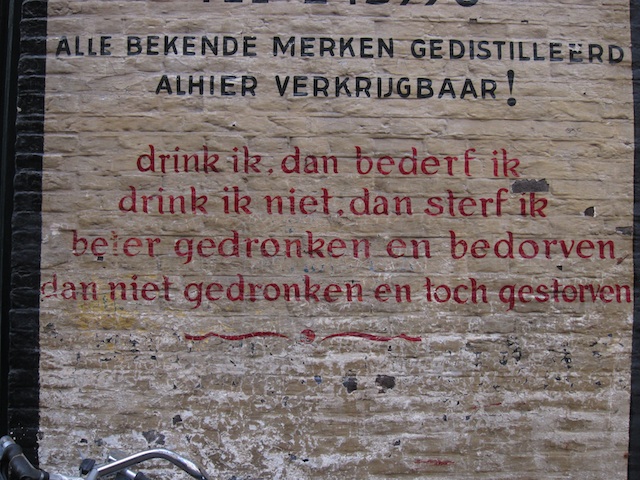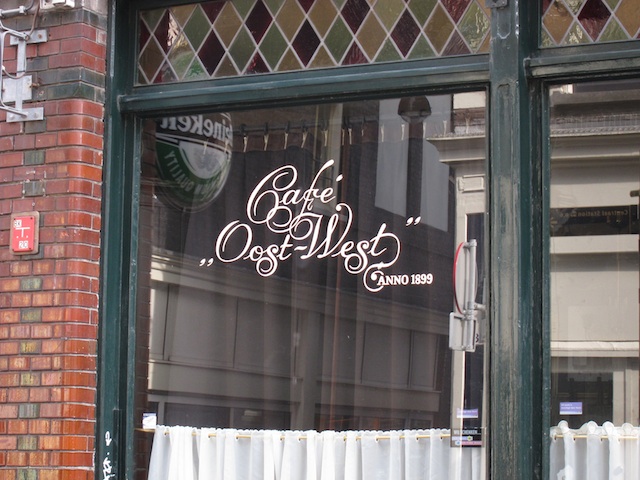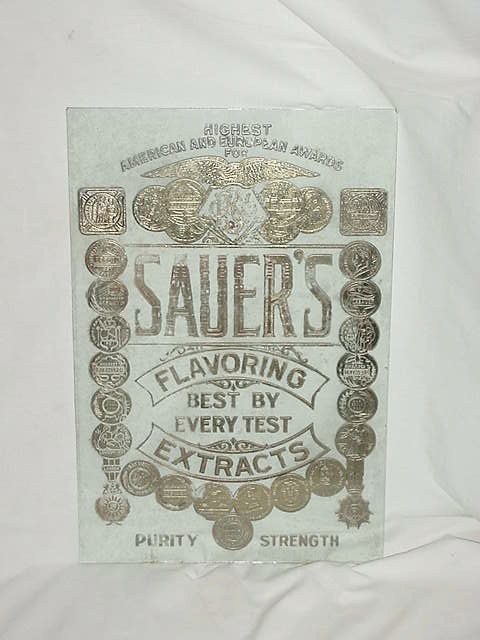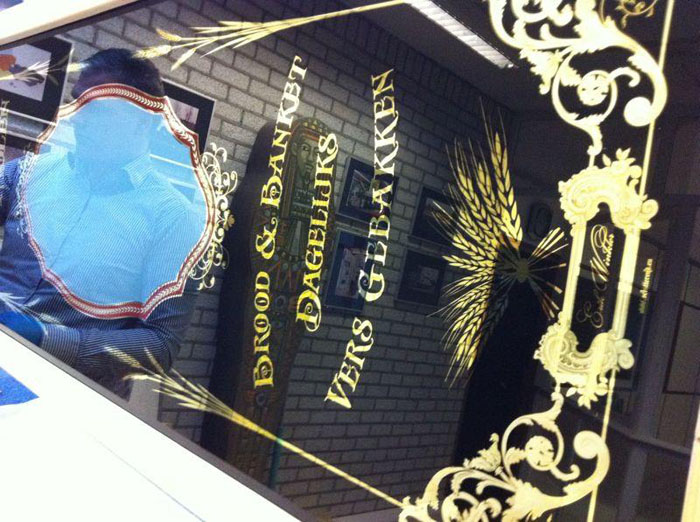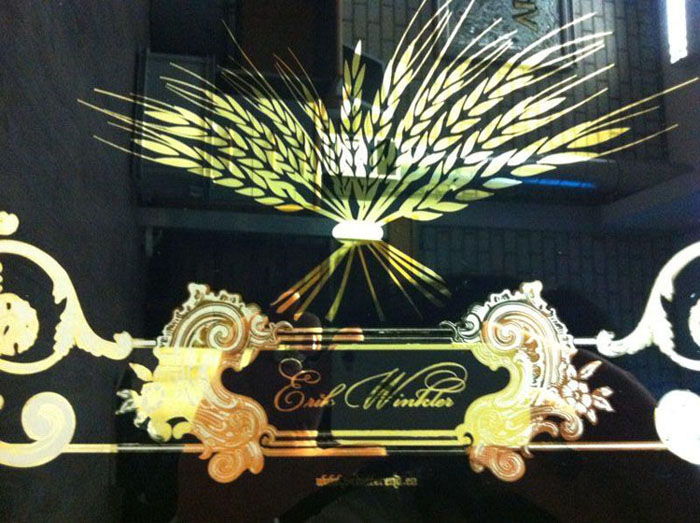
Hi Erik,
You misunderstood me. I don't mean a hole for ventilation.
The air gap I refer to is a space between the back of the glass panel and the wall behind it.
The principle idea is that nothing should touch the back of the splashback. Or more accurately, nothing should touch the paint that has been applied to the back of the glass.
This same principle applies to glass pictures, signs or mirrors mounted in a frame...It's not good to have any backing board up hard against the glass panel.
That is what I understood Bruce.
Where is the hole?
If it is on top, I can imagine that water will sip in and drip to the bottom and could eventually peel of the work.
Where is the hole?
If it is on top, I can imagine that water will sip in and drip to the bottom and could eventually peel of the work.
Erik, don't think drainage, think cavity wall insulation and you will get it.
Eric,
Nice videos of the Cafe Club Brandon. Hanging over the side of a ladder is hard enough - doing it with a fine script is what we would call "hairy". Good show.
I was in Amsterdam for a day and 1/2 last March, so I ran around with a camera looking for signs. I saw only one gilded window sign, but a few of the traditional cafes with script on the windows. Is it always on the outside of the glass? Are there any left where the letters are on window screen?
Here is one I admired - the small lettering for the hours has about 3/4" capitals. White paint on the outside of glass windows. Hot stuff.
Lee,
I bet you had a great time visiting Amsterdam. Looks like you were on one of the right spots.
The windows you photographed belong to one of the two remaining houses left in Amsterdam which still have their original wooden facade.